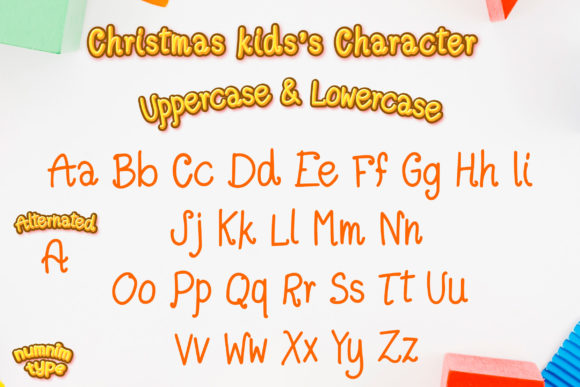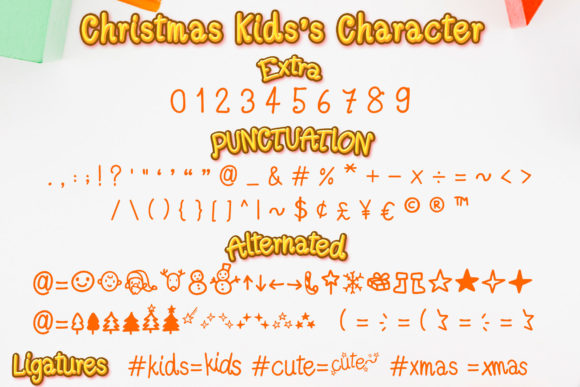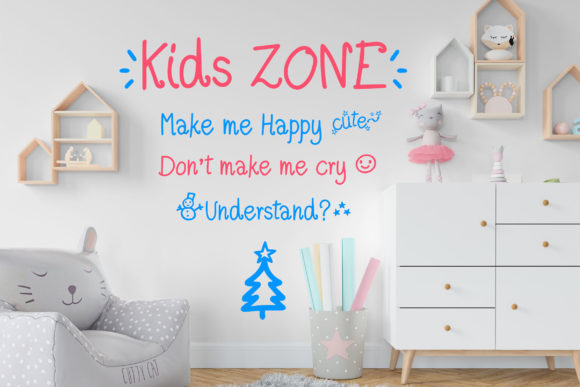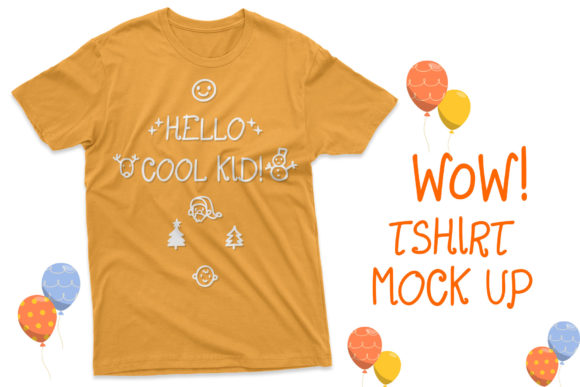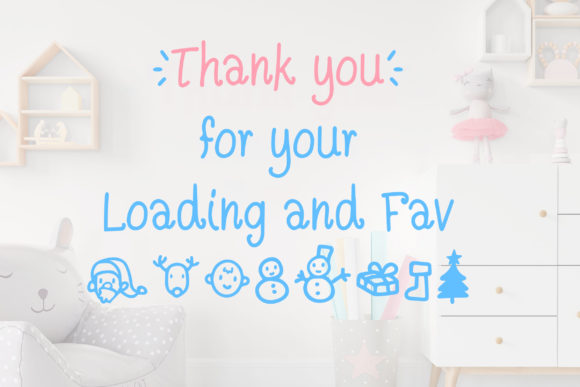
Introducing Christmas Kids Font: A Joyful and Delicate Handwritten Font for Holiday and Children-Themed Designs
Are you looking for a font that captures the essence of the holiday season and brings a touch of childhood magic to your designs? Look no further than Christmas Kids Font, a joyful and delicate handwritten font that’s perfect for creating festive and fun designs for kids and adults alike.
What is Christmas Kids Font?
Christmas Kids Font is a carefully crafted handwritten font that’s designed to evoke the feeling of joy and wonder that comes with the holiday season. Its delicate and whimsical design makes it perfect for use in a variety of applications, from holiday cards and invitations to children’s party decorations and craft projects.
Key Features of Christmas Kids Font
- Handwritten design: Christmas Kids Font features a unique and charming handwritten design that’s perfect for adding a personal touch to your projects.
- Delicate and whimsical: The font’s delicate and whimsical design makes it perfect for use in children’s themed designs and holiday projects.
- Bright and cheerful: The font’s playful design pairs perfectly with bright colors, making it ideal for creating fun and festive designs.
- Easy to read: Despite its whimsical design, Christmas Kids Font is easy to read, making it perfect for use in a variety of applications, from titles and headings to body text.
Perfect for Holiday and Children-Themed Designs
Christmas Kids Font is the perfect choice for designers and crafters looking to create holiday and children-themed designs that are both fun and festive. Its joyful and delicate design makes it perfect for use in:
- Holiday cards and invitations: Create festive and fun holiday cards and invitations that are sure to delight kids and adults alike.
- Children’s party decorations: Use Christmas Kids Font to create fun and festive decorations for kids’ parties, including banners, garlands, and more.
- Craft projects: Add a touch of holiday magic to your craft projects, including scrapbooking, DIY gifts, and more.
- Digital designs: Use Christmas Kids Font to create fun and festive digital designs, including social media graphics, blog posts, and more.
Tips for Using Christmas Kids Font
Here are a few tips for getting the most out of Christmas Kids Font:
- Pair with bright colors: The font’s playful design pairs perfectly with bright colors, so don’t be afraid to get creative with your color palette.
- Use in combination with other fonts: Christmas Kids Font pairs well with a variety of other fonts, so feel free to experiment with different combinations to find the perfect look for your project.
- Experiment with different sizes: The font’s delicate design makes it perfect for use in a variety of sizes, from small titles and headings to larger display text.
Christmas Kids Font is a joyful and delicate handwritten font that’s perfect for holiday and children-themed designs. Its playful and whimsical design makes it perfect for use in a variety of applications, from holiday cards and invitations to children’s party decorations and craft projects. With its easy-to-read design and bright and cheerful aesthetic, Christmas Kids Font is sure to become a favorite in your design arsenal.